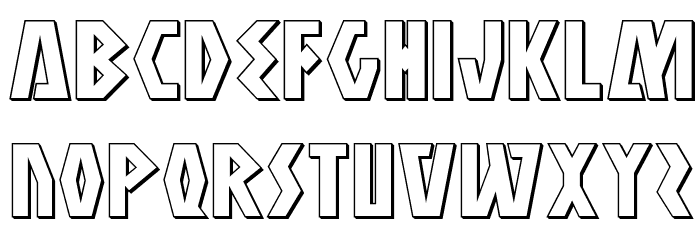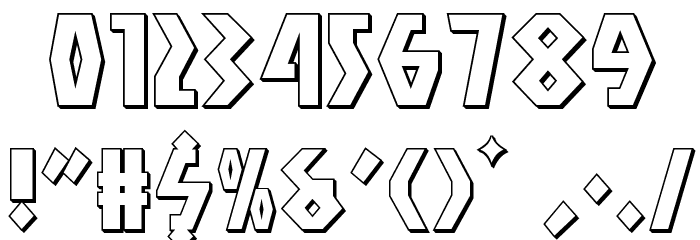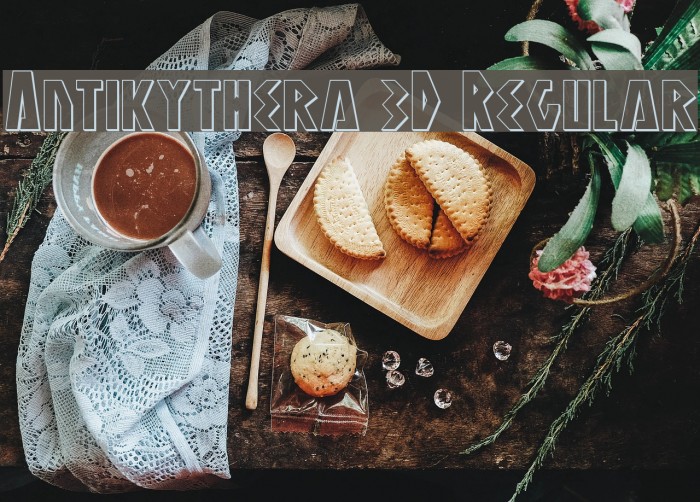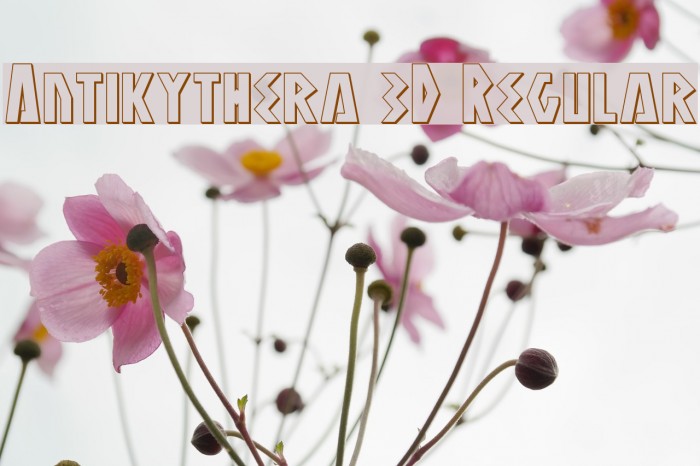
Antikythera 3D Regular Font
This font features a bold, geometric design with a 3D effect that gives each character a sense of depth and dimension. The letters are constructed with sharp angles and clean lines, creating a futuristic and dynamic appearance. The uppercase and lowercase letters maintain a consistent style, while the numbers and special characters complement the overall aesthetic. The font's unique structure makes it stand out, ideal for projects that require a modern and eye-catching typeface.
A bold, geometric 3D font with sharp angles and a futuristic style.
- Proposed Projects: Ideal for sci-fi themed designs, video game titles, posters, and branding that requires a modern edge.